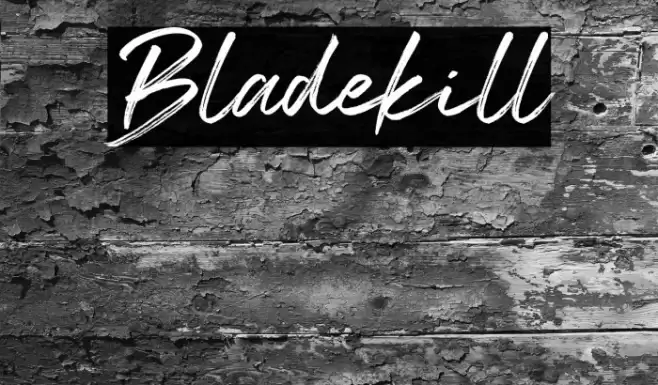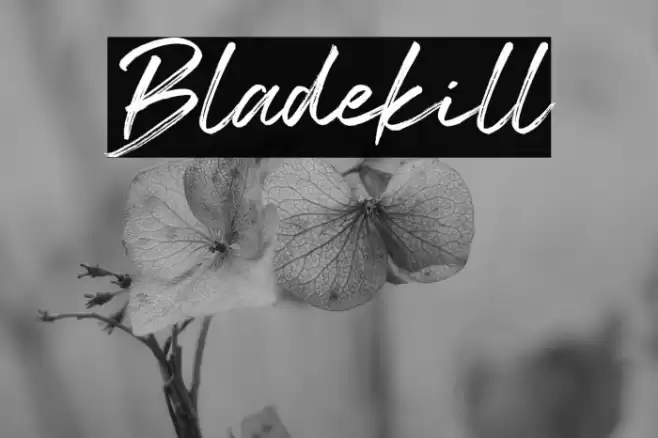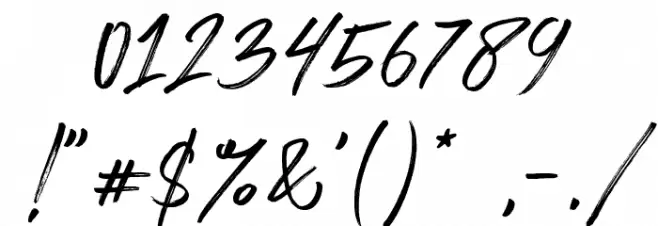
Bladekill Font
Bladekill Description
This font exhibits a dynamic and energetic style, characterized by its sharp, angular strokes and a handwritten appearance. The letters are slightly slanted, giving a sense of motion and fluidity. The uppercase and lowercase letters maintain a consistent style, with elongated ascenders and descenders that add to its expressive nature. The numbers and special characters follow the same aesthetic, ensuring a cohesive look. The overall design is bold and impactful, making it suitable for attention-grabbing applications.
A dynamic, handwritten-style font with sharp, angular strokes from Uncategorized fonts.
- Proposed Projects: Ideal for branding, posters, and any design requiring a bold, expressive touch.